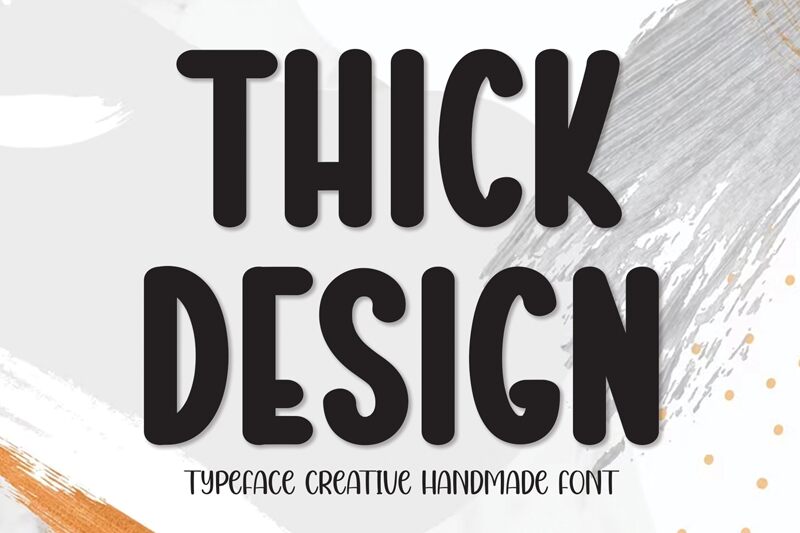
Thick Design
Thick Design font, crafted by Scratchones, embodies a bold handwritten style with a uniquely condensed structure. This free font stands out with its striking visual impact and adds a personal touch to any design project. Its condensed form allows for efficient space usage while maintaining legibility, making it suitable for logo design, branding, social media graphics, and more.
Ideal for bold headlines or engaging call-to-actions, the Thick Design font invites creativity with its distinct aesthetic flair. Download this font today to elevate your design projects with personality and style.